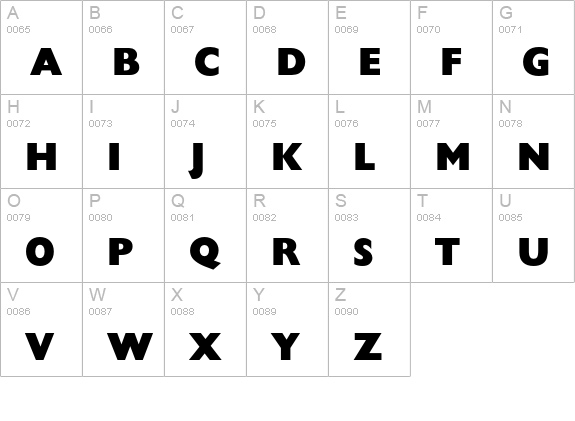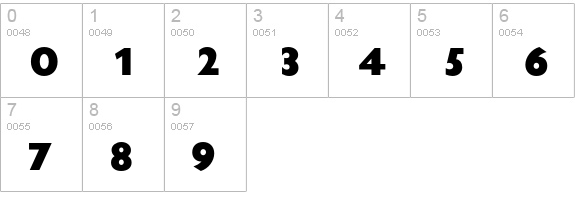
Giltus T Extra Bold is a strong, high-contrast variant in the Giltus typeface family \xE2\x80\x94 well suited to headlines, attention-grabbing titles, and strong calls-to-action.
Giltus T Extra Bold is a striking and commanding typeface designed to make a bold statement. With its thick, strong lines and sharp edges, this font exudes confidence and power. Perfect for headlines, titles, and any design project that requires a bold and impactful look. The best part about Giltus T Extra Bold is that it is available for free download at FontsMarket.com. You can easily add this eye-catching font to your collection without any cost. Don't miss out on the opportunity to enhance your designs with this powerful and dynamic typeface. Download Giltus T Extra Bold today and take your projects to the next level!